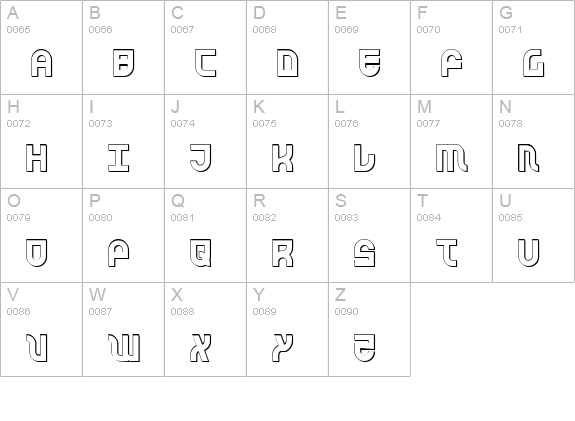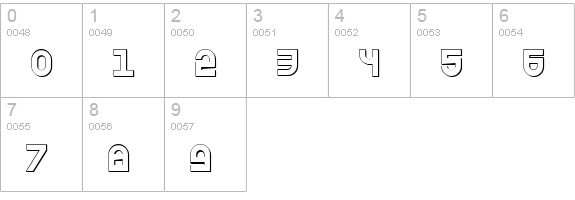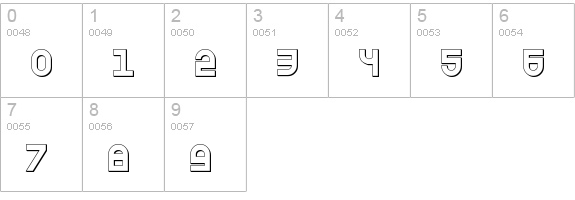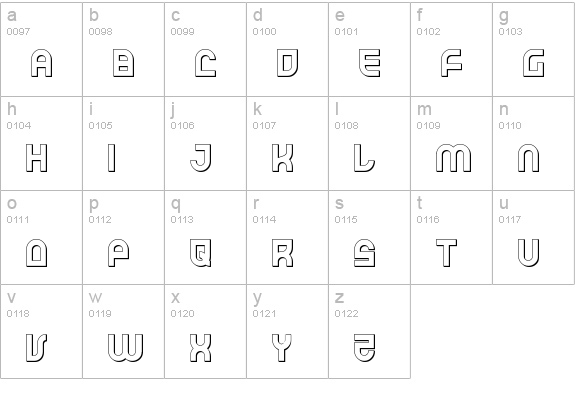
Trek Trooper 3D Font Details
The Trek Trooper 3D font is a stunning display font that combines futuristic aesthetics with a bold and dynamic appearance. Its sleek and modern design makes it perfect for projects that require a futuristic and adventurous vibe. The three-dimensional effect adds depth and dimension to your text, making it stand out and grab attention. What's even better is that the Trek Trooper 3D font is completely free to download at FontsMarket.com. This means you can easily add this eye-catching font to your collection without any cost. Whether you're working on a sci-fi poster, a gaming project, or a tech-related design, the Trek Trooper 3D font is sure to elevate your work and give it a unique edge. Download it now and start creating captivating designs with this amazing font!